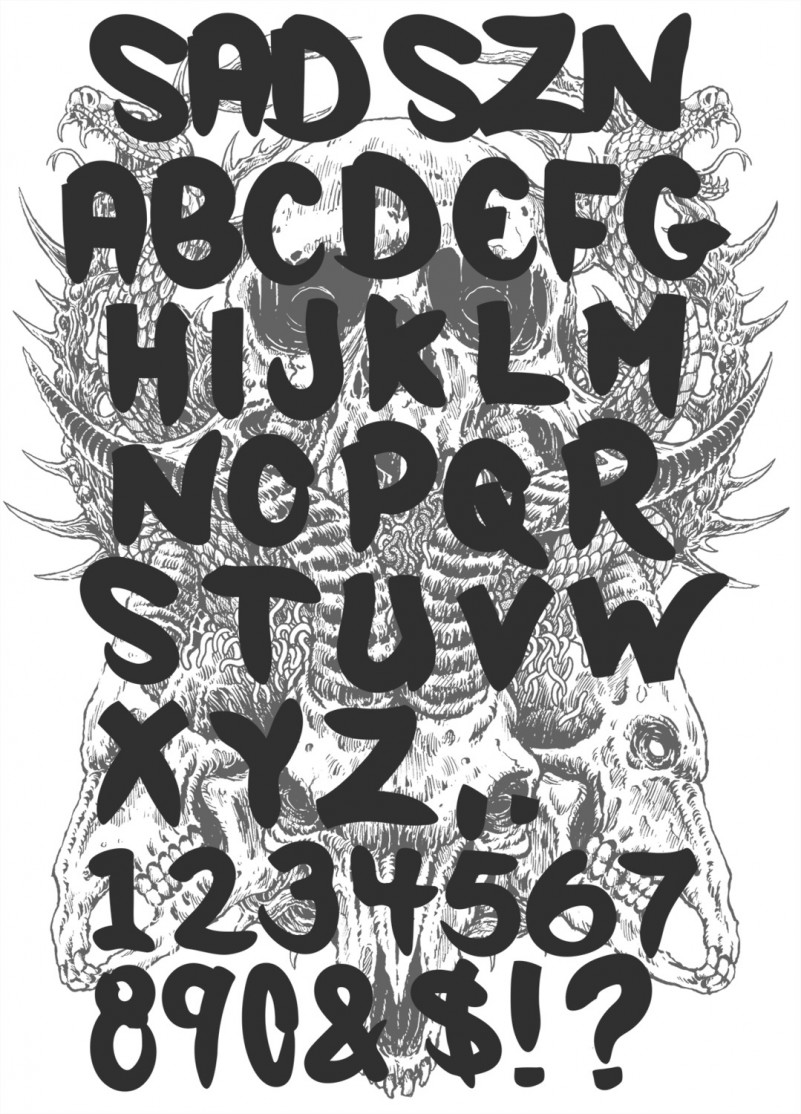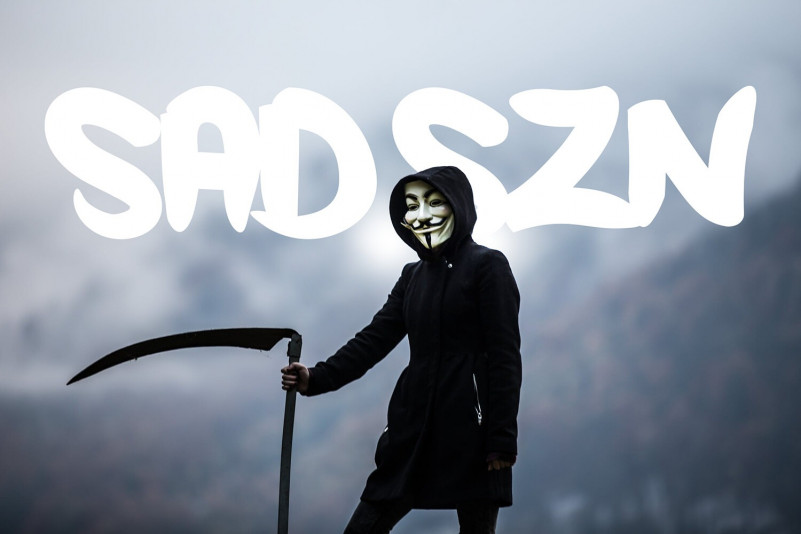
Bratt Graner Brush Font
Bratt Graner is a bold handwritten font, carefully handcrafted to become a true favorite. This font is the perfect fit for all of your logos, branding, social media, and crafty DIY projects.